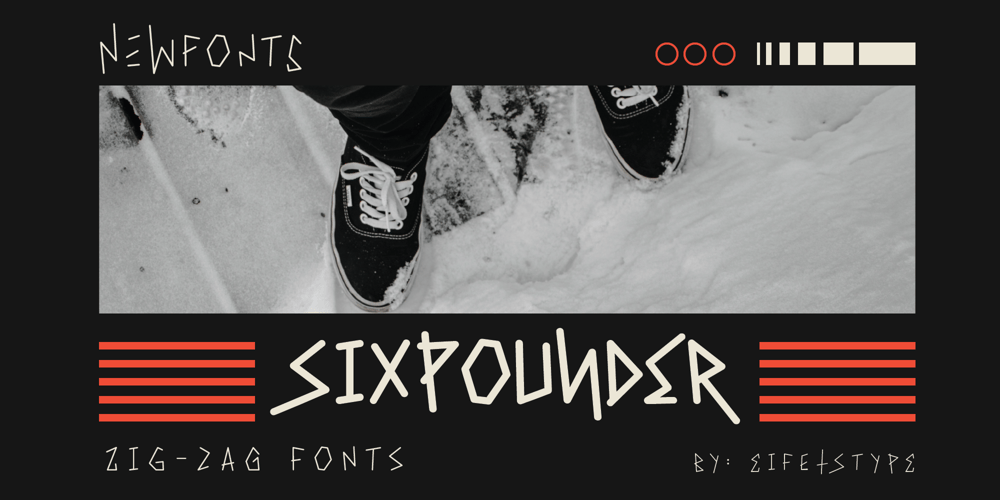
Six Pounder Font Family was designed by Stefie Justprince and published by Crumphand. Six Pounder contains 1 styles and family package options. Introducing, Sixpounder Fonts. inspired by indonesian Tribes, Tatto and Poster band.easy to read, easy access to opentype.What’s Included The Fonts ? Uppercase Lowercase Symbols Numbers Stylistic Set 1 Stylistic Set 2 Stylistic Set 3 Stylistic Set 4 European Multilingual Thank You, Regards!